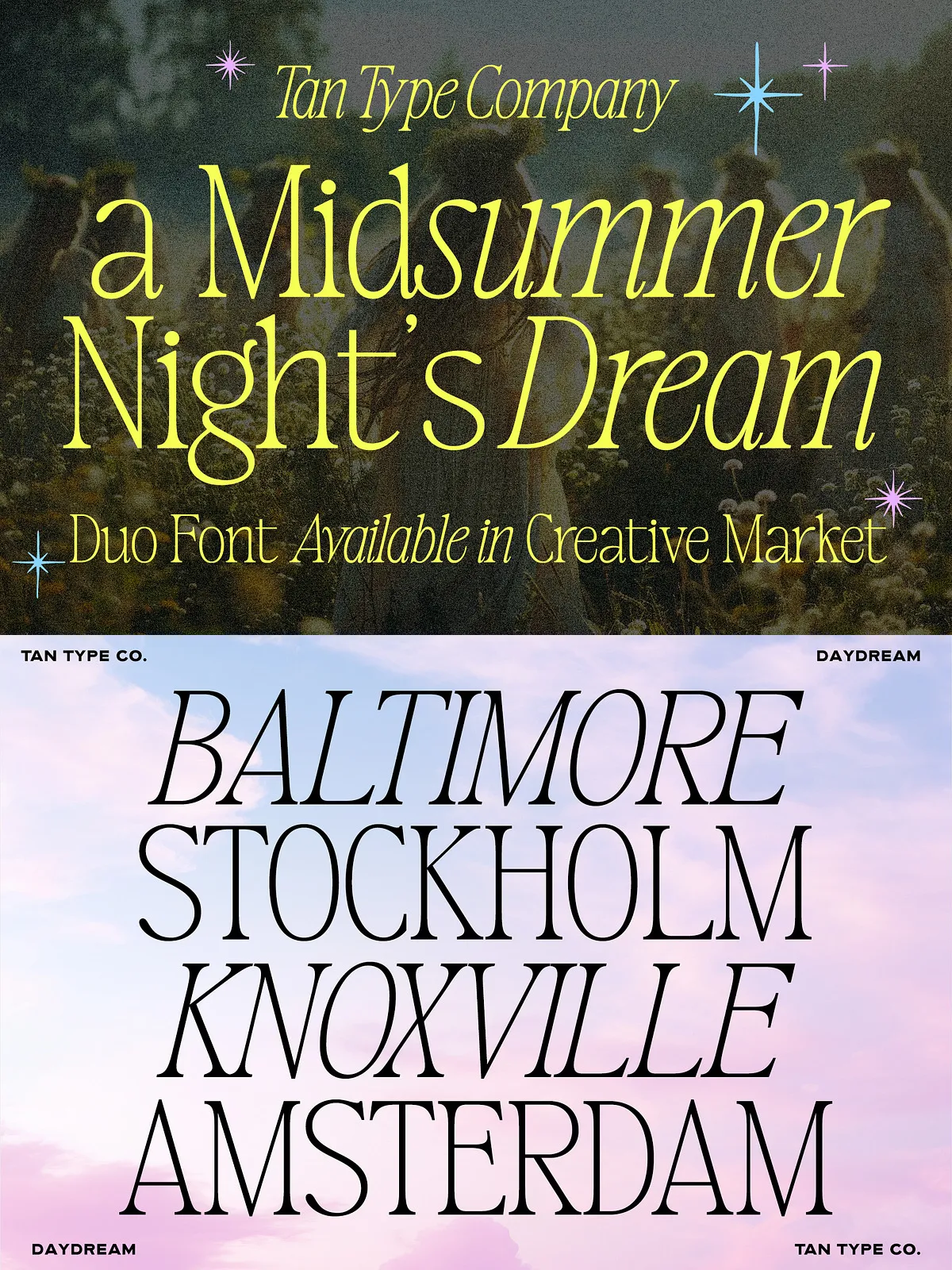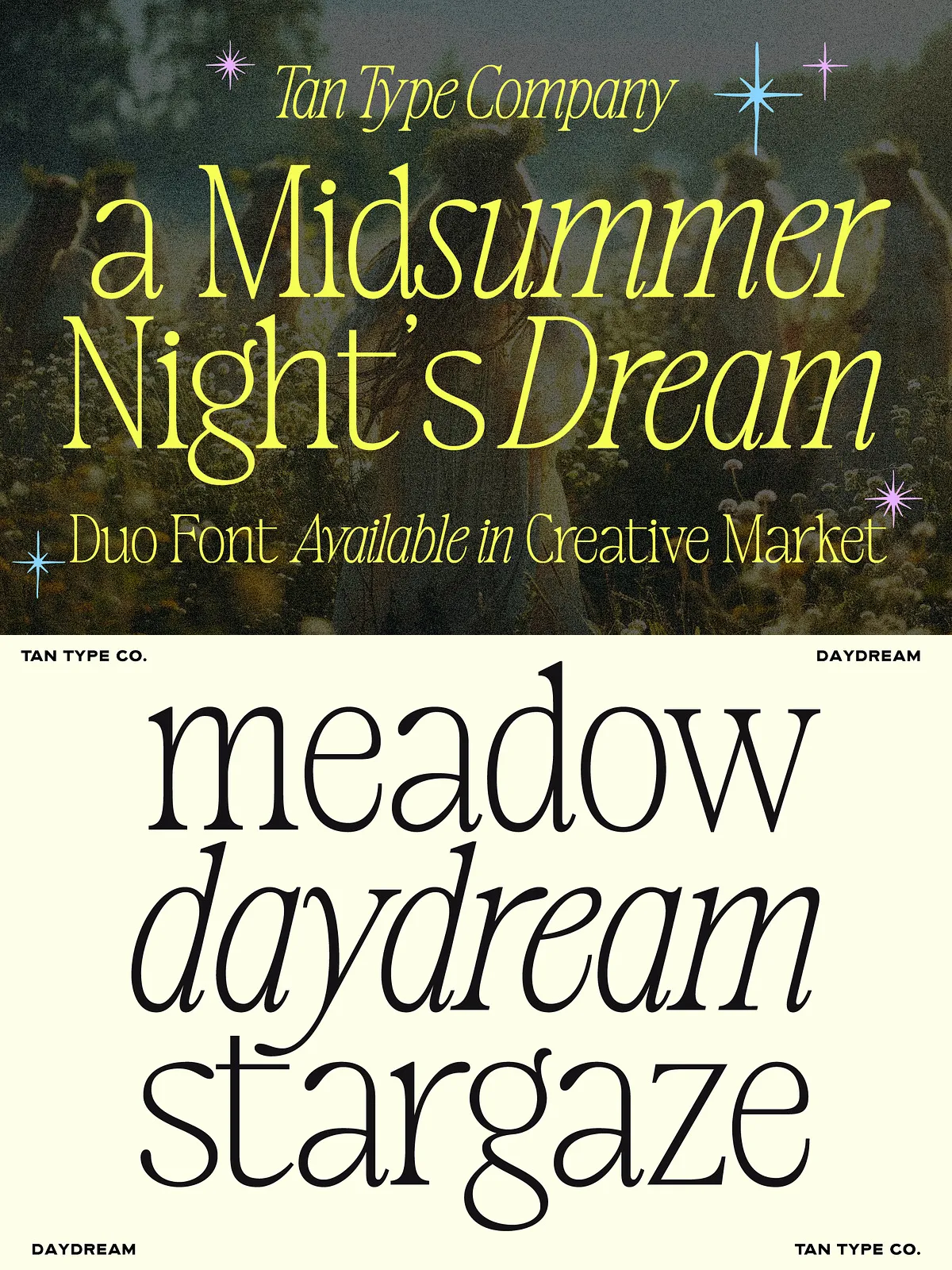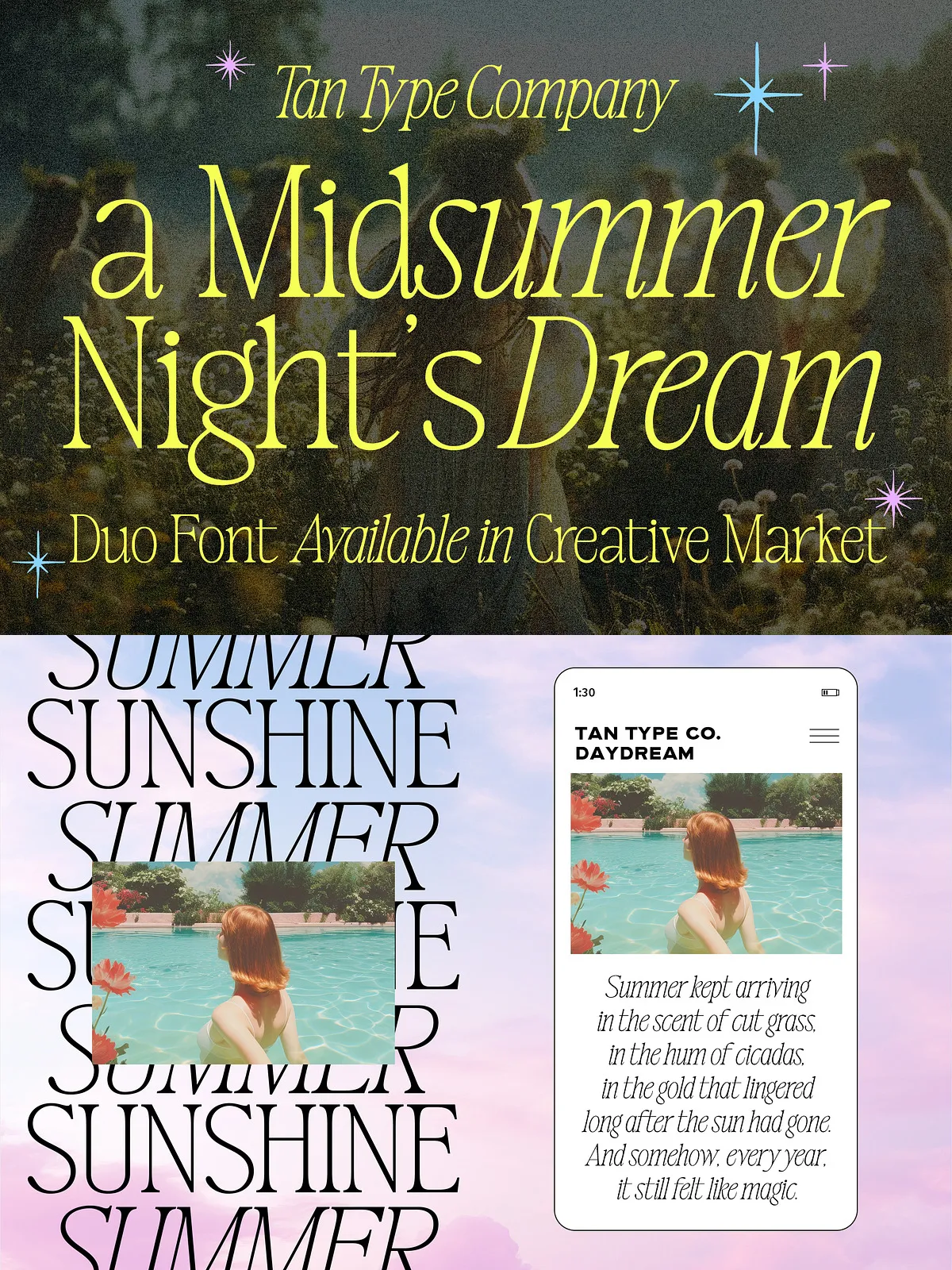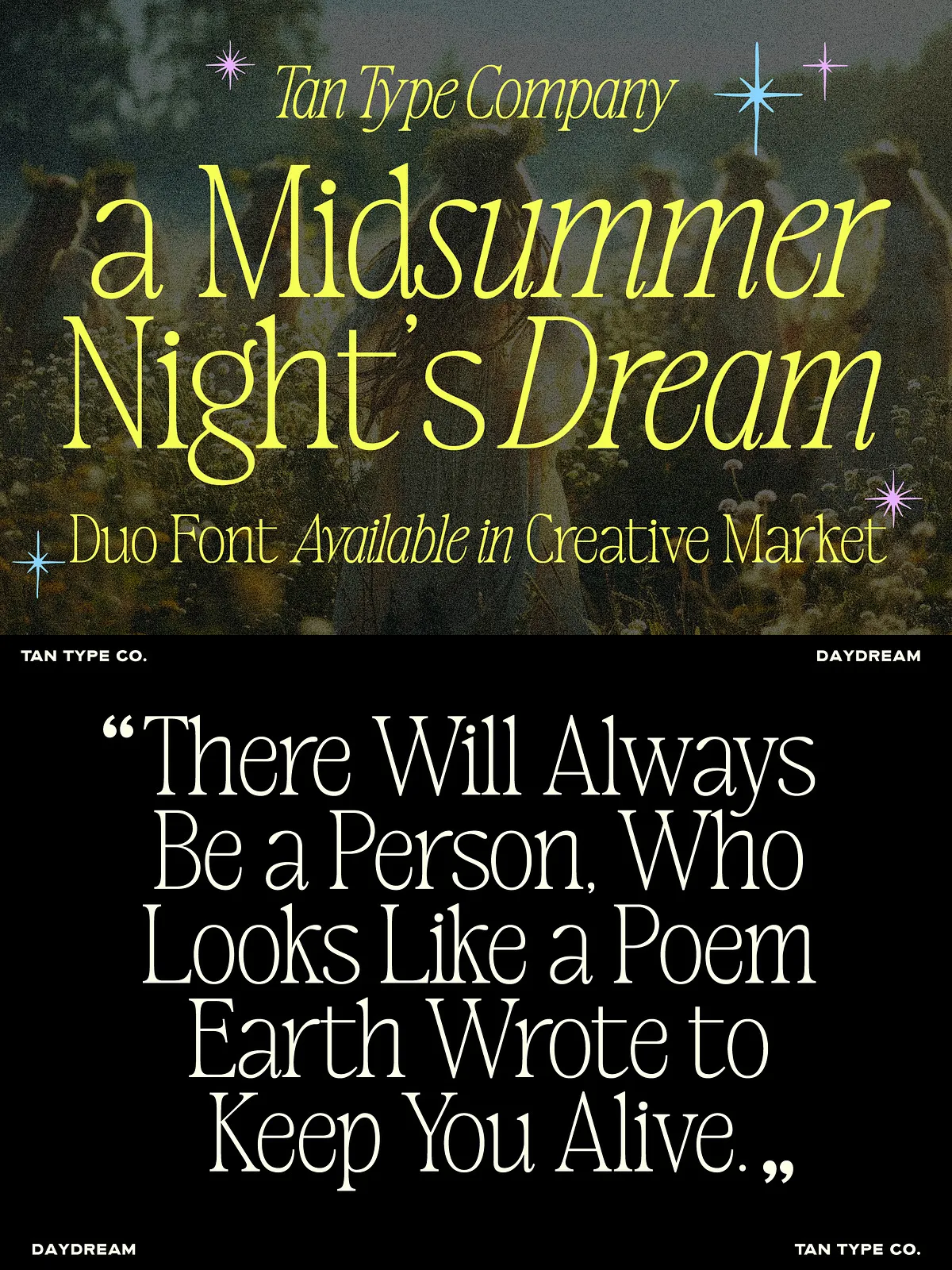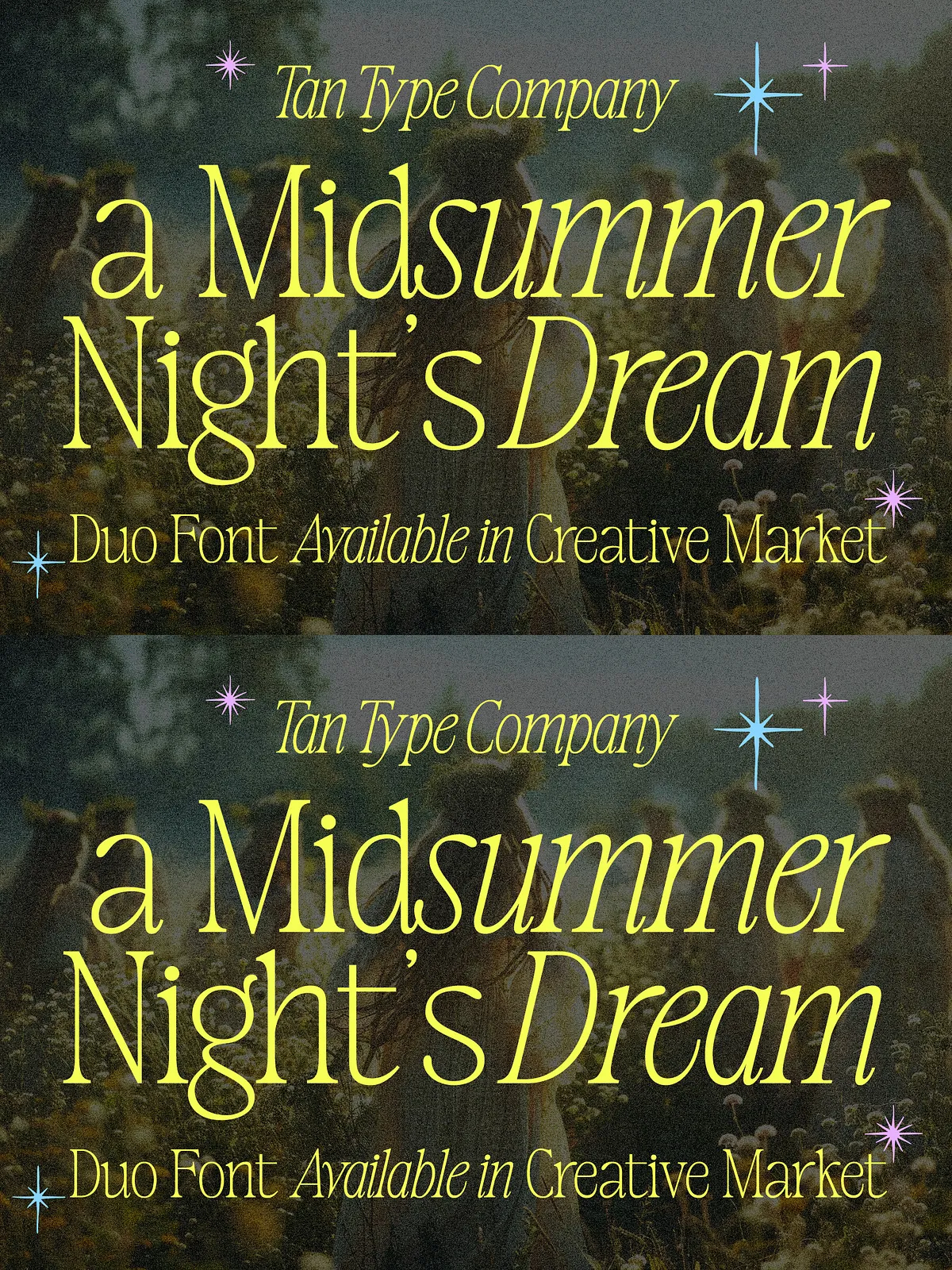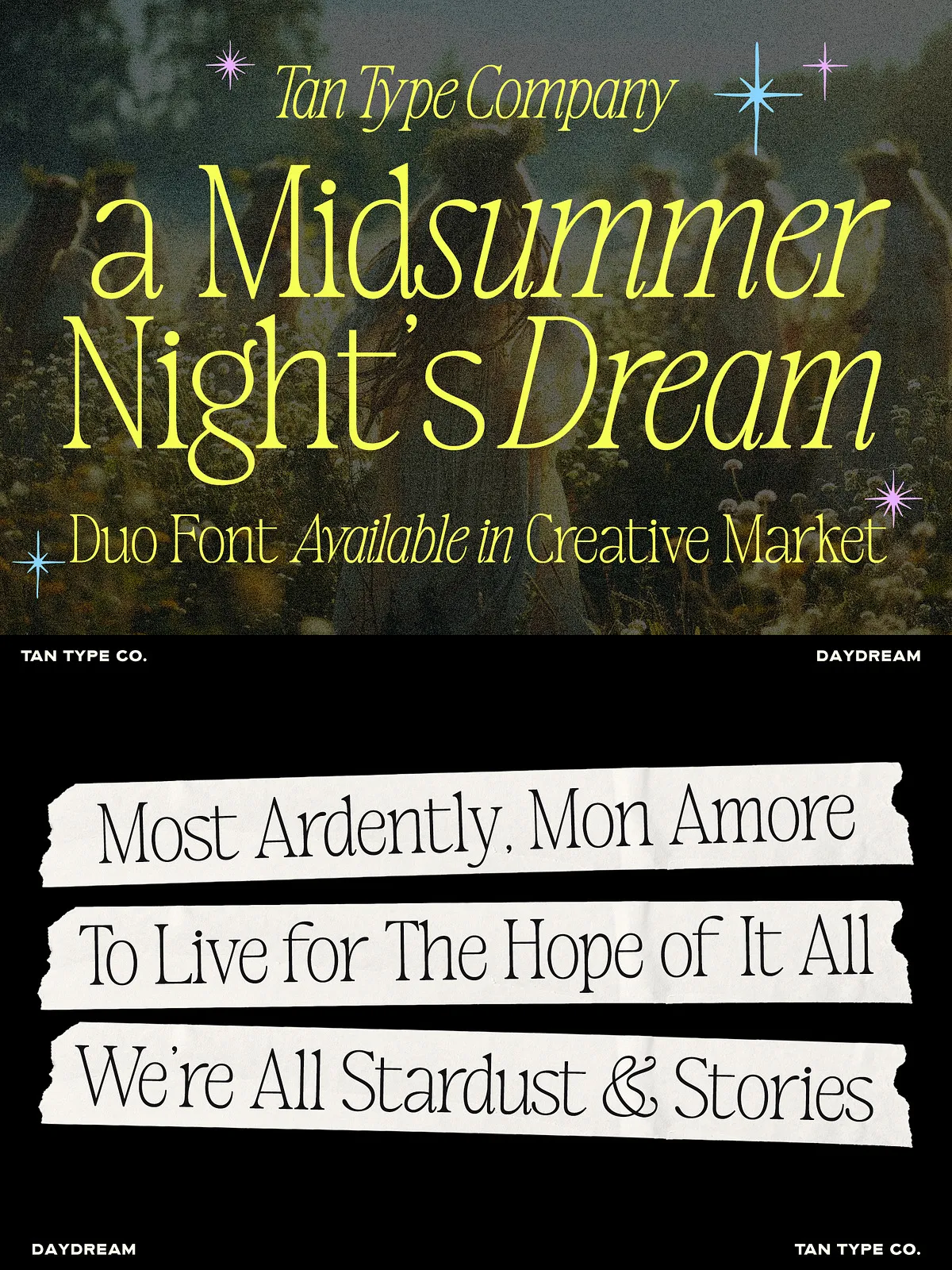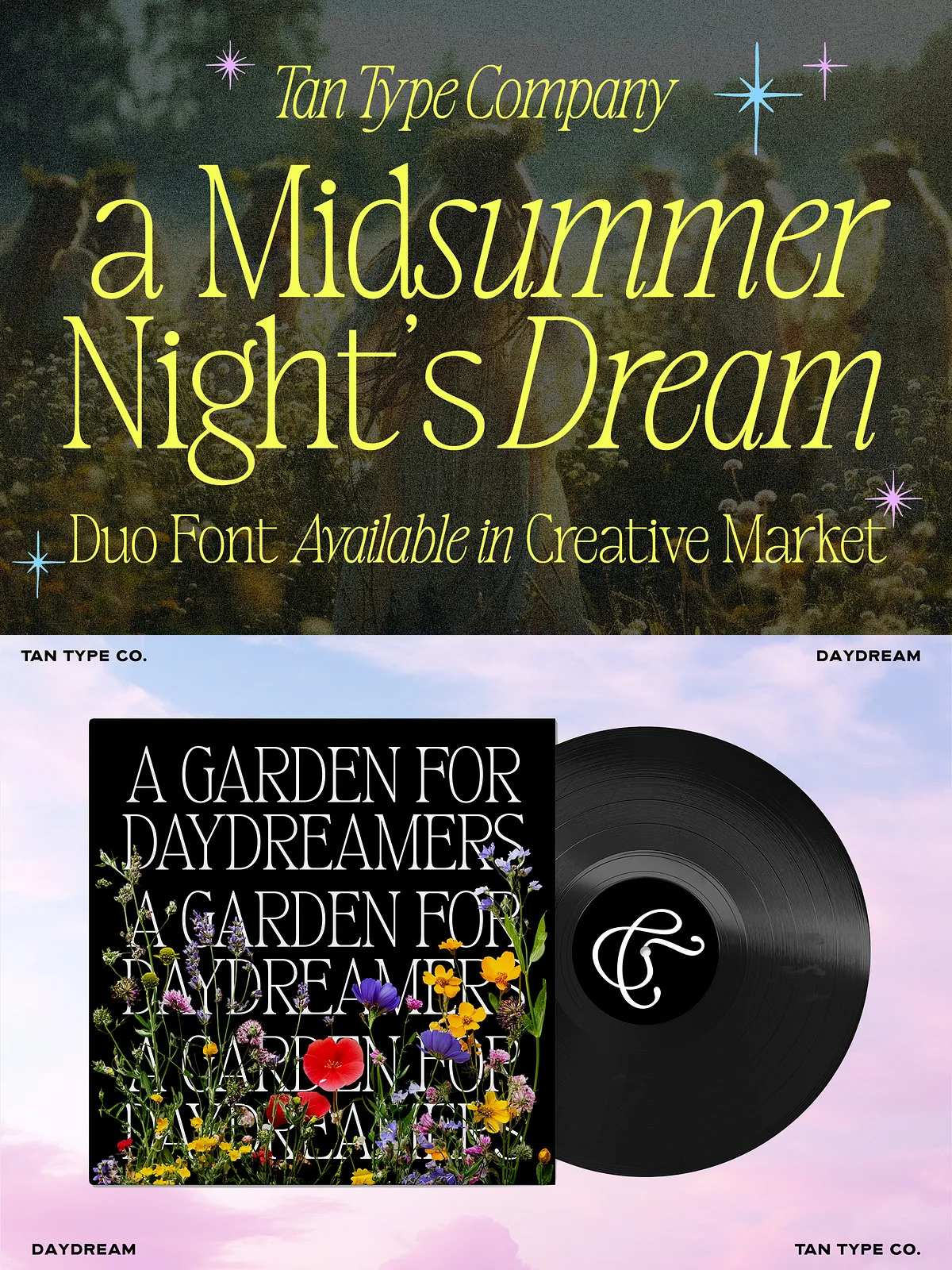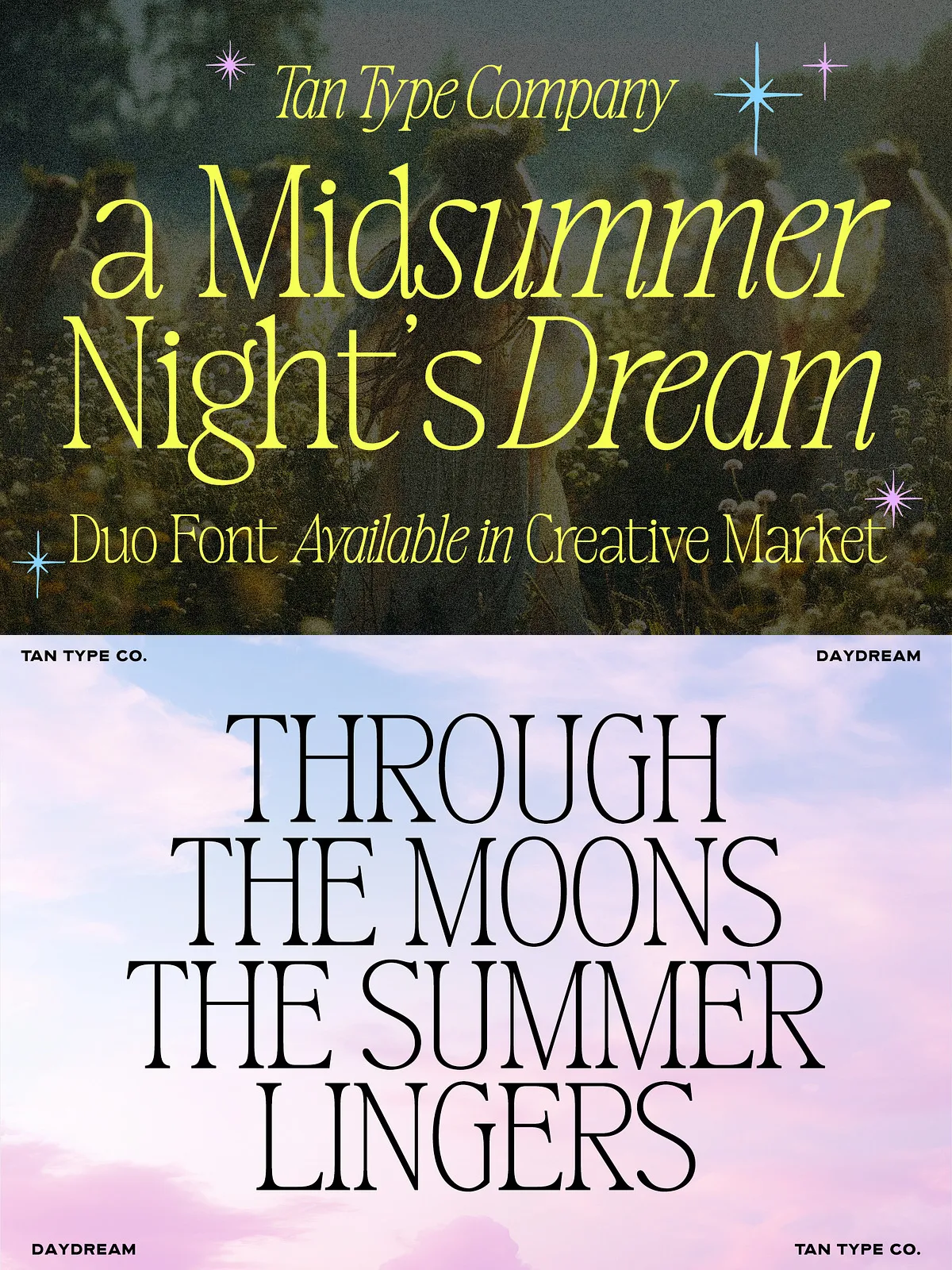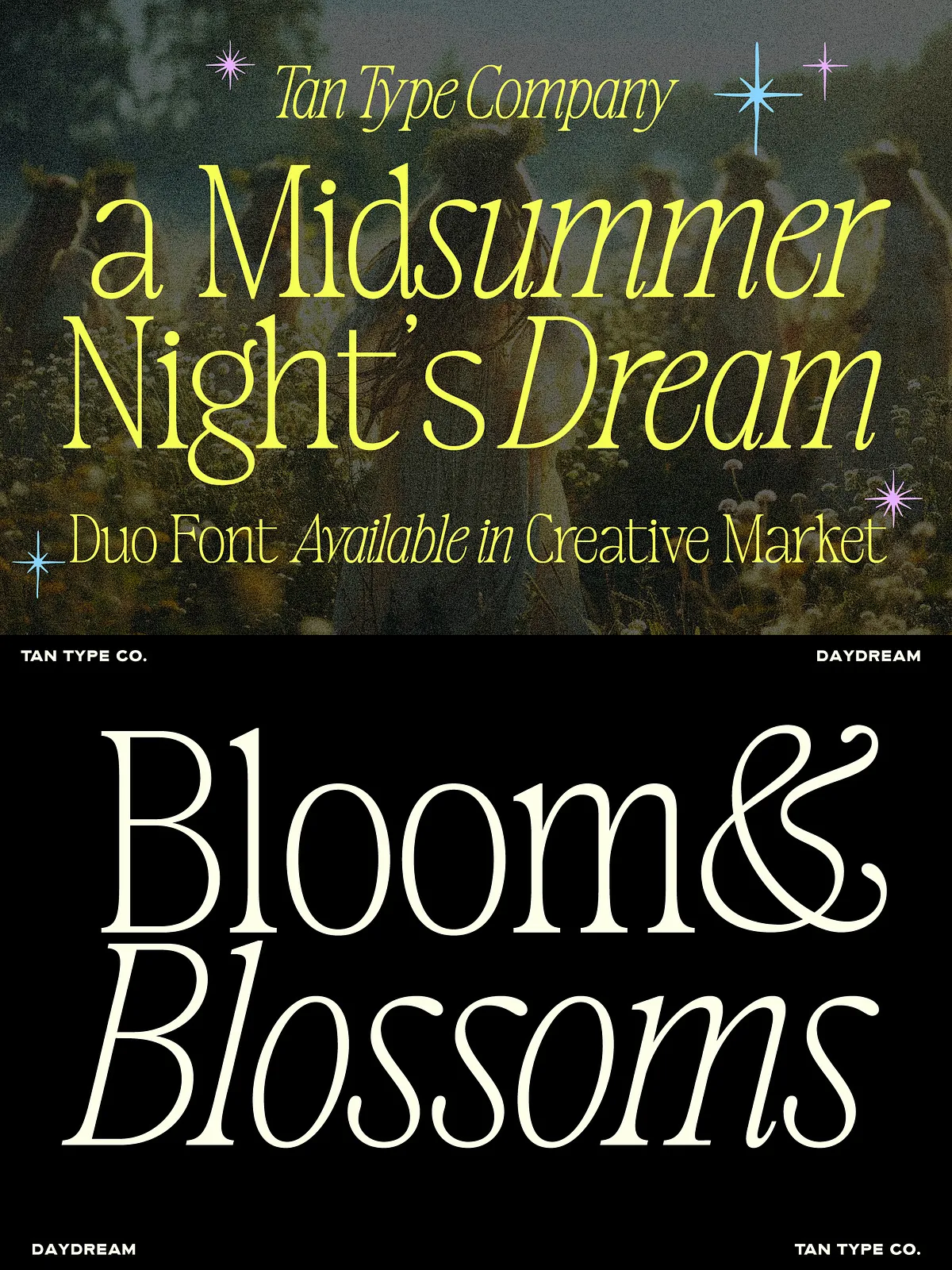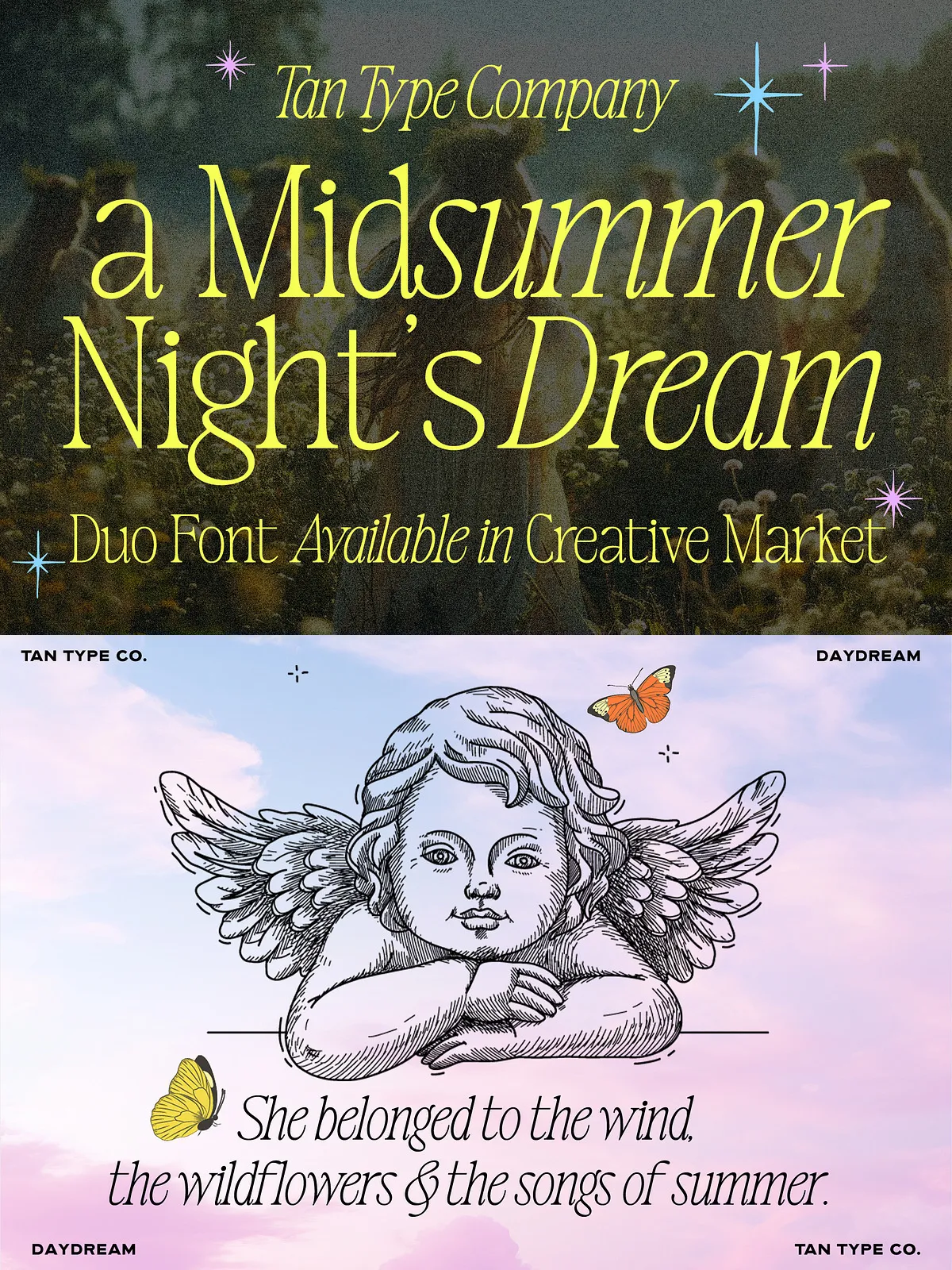
TAN-Midsummer channels the warmth of golden evenings and the quiet charm of wildflower fields into a type system built for beauty and clarity. This serif duo pairs an elegant serif with a complementary flowing italic to create typographic combinations that feel intimate, nostalgic, and finely crafted. Designers who seek to convey understated luxury and emotional warmth will find Midsummer highly effective for branding, invitations, editorial layouts, and packaging. The typeface elevates simple copy into evocative statements and turns headlines into memorable visual moments.
Elegant Proportions and Delicate Contrast
Midsummer balances refined proportions with measured stroke contrast to produce letters that read beautifully at both display and text sizes. The serif face provides structure and readability, while the contrast lends an air of sophistication without compromising legibility.
Flowing, Expressive Italic
The italic companion acts like a handwritten flourish. It introduces motion and personality, perfect for pull quotes, signatures, names, and decorative headings. The italic maintains consistent rhythm with the roman family so mixed lines and stacked typographic compositions feel cohesive.
Thoughtful OpenType Features
TAN-Midsummer includes useful OpenType capabilities—ligatures, alternates, and small caps—that let designers refine type details quickly. Use discretionary ligatures for a handcrafted look, alternate glyphs for visual variety, and small caps for elegant label treatments.
Multilingual Support & Compatibility
Applications & Use Cases
TAN-Midsummer suits any project that benefits from a romantic, refined voice. Typical uses include:
- Wedding stationery and event invitations—create warm, memorable suites with coordinated serif and italic pairings.
- Brand identity and logo systems—establish a timeless typographic mark with elegant serif headlines and expressive italics.
- Book covers and editorial spreads—anchor layouts with graceful headings and readable body copy.
- Luxury packaging and product labels—convey craftsmanship and premium quality through refined letterforms.
Design Tips
Pairing and Hierarchy
Use the serif face for body copy and primary headings when you need structure and readability. Deploy the italic as accent type—names, taglines, and decorative lines—so the design breathes and feels personal. Pair Midsummer with a neutral sans for long-form digital content to keep reading flow comfortable.
Color, Scale, and Spacing
Keep generous leading and moderate line-lengths for body text to let the delicate contrast read clearly. At display sizes, increase tracking slightly to emphasize elegance. Choose soft, warm palettes to reinforce the typeface’s nostalgic tone, or use high-contrast palettes when you want a more modern, editorial look.